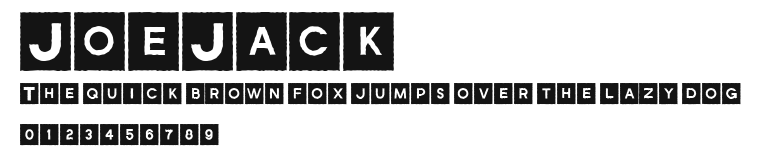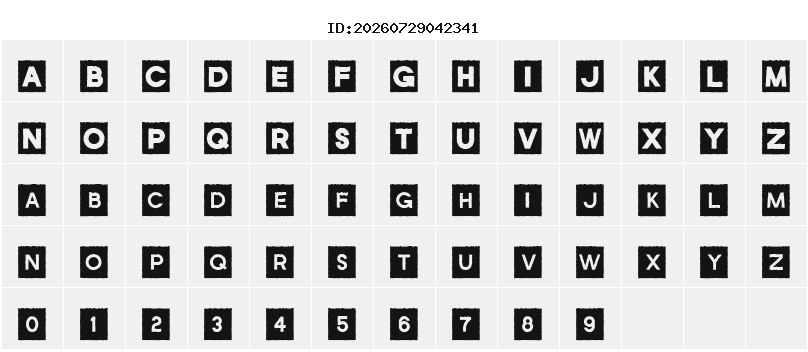
• Font Name: JoeJack
About JoeJack.ttf
JoeJack.ttf is a modern, elegant sans-serif font designed for ultimate readability and visual harmony. Perfect for branding, headlines, web design, and print materials.